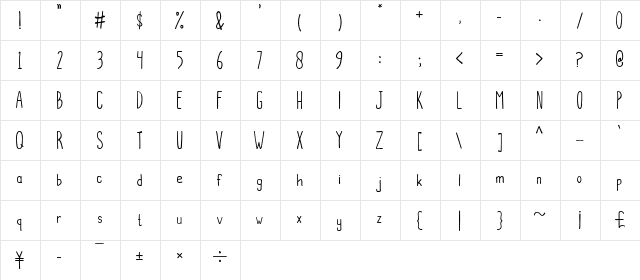
Balamoa Normal Regular
Design Context for Balamoa Normal Typeface
Balamoa Normal offers clean, dependable letterforms without strong stylistic allegiance, making it a practical choice for designers who need flexibility.